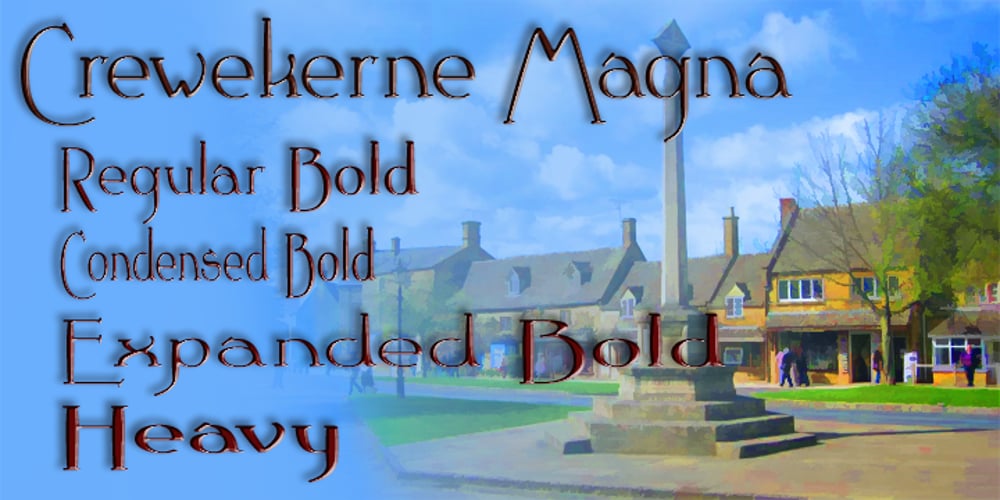
Crewekerne Magna Font Family was designed by Paul James Lloyd and published by Greater Albion Typefounders. Crewekerne Magna contains 7 styles and family package options. Crewekerne is a typeface family which speaks of the villages that are at the heart of English life. It is inspired by the arts and crafts movement of the early twentieth century, and is complimented by two other families, Crewekerne Magna and Crewekerne Magister. Three widths – condensed, regular and expanded and three weights – regular bold and heavy are offered. Crewekerne is especially good when combined with its two complimentary families and when used in poster and design work that needs a rustic hand crafted flair but still needs to be easily legible. Crewekene is a fun family and a serious set of faces all in one. Crewekerne, Crewekerne Magna and Crewekerne Magister can also be purchased together in the Crewekerne Value Pack.